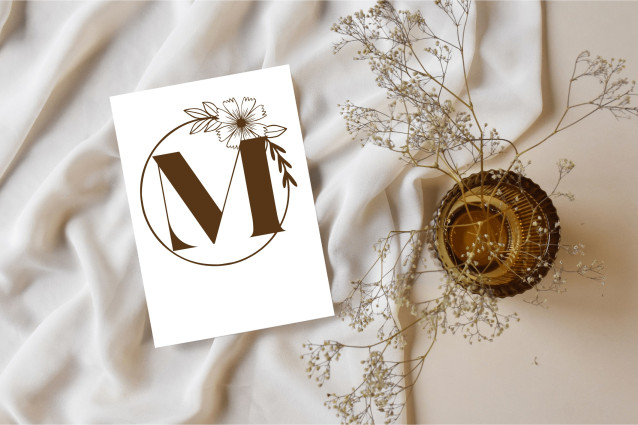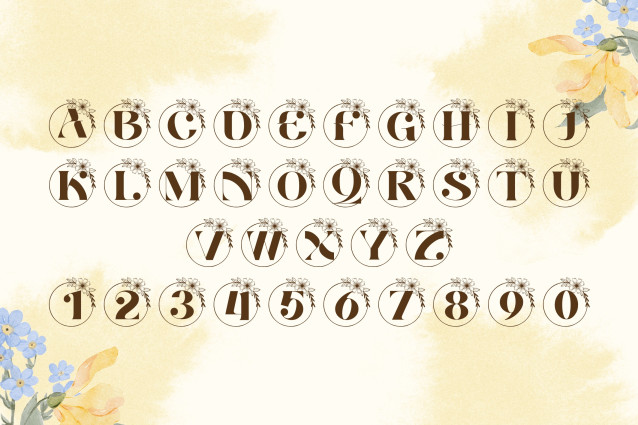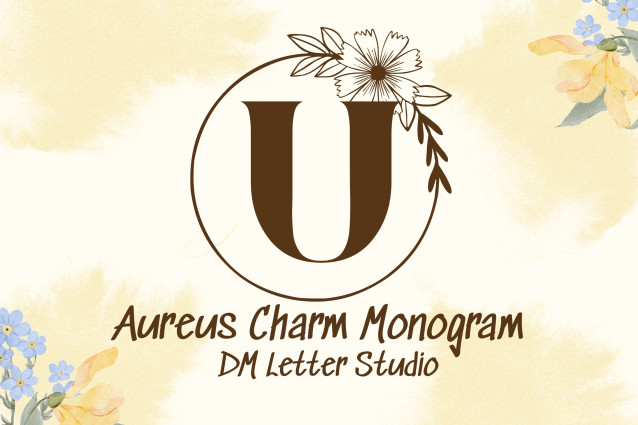
Aureus Charm Monogram Font
Aureus Charm Monogram is a sophisticated monogram serif font designed to radiate timeless elegance and golden refinement. With its stately uppercase characters and ornamental finesse, this font is ideal for luxury branding, wedding identities, upscale packaging, and monogram-focused design. Inspired by classic Roman forms and modern minimalism, Aureus Charm delivers prestige and charm in perfect balance.